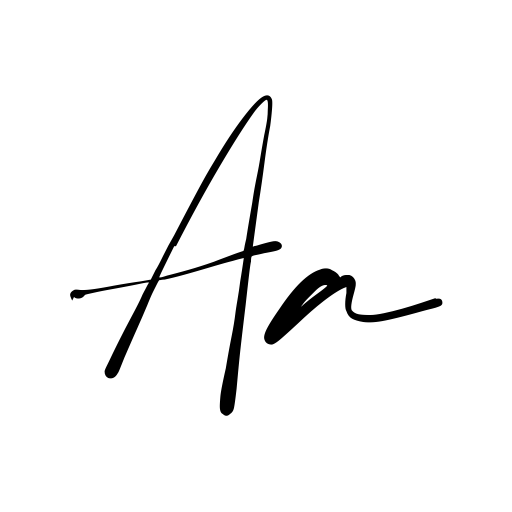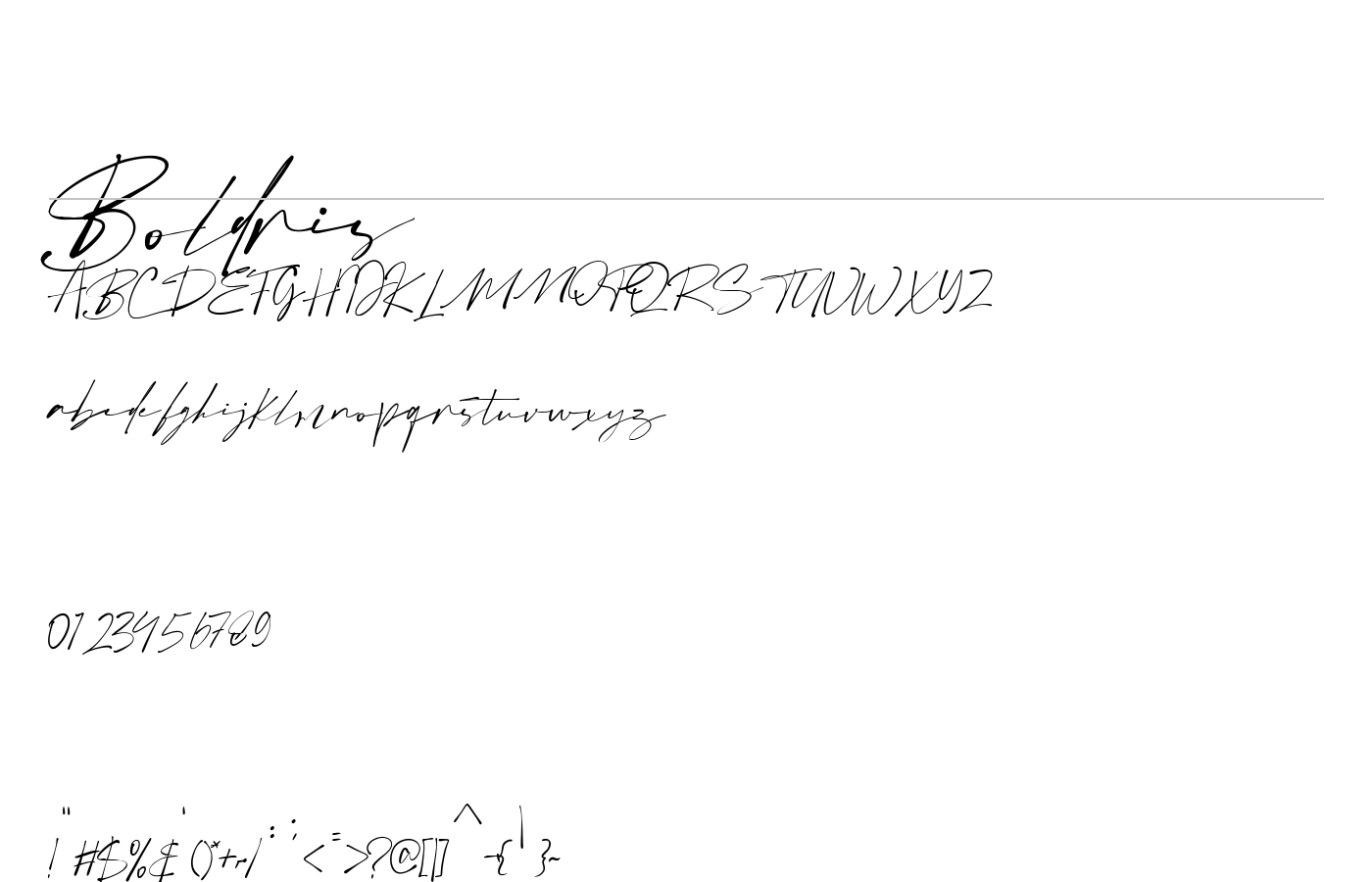
Boldris is an elegant, handwritten script font that features thin, flowing strokes with a delicate, natural calligraphic style. Its lightweight and airy letterforms convey a sophisticated and personal touch, making it ideal for luxury branding, invitations, or artistic projects where a refined and creative feel is desired.
Boldris Font
About Boldris Font